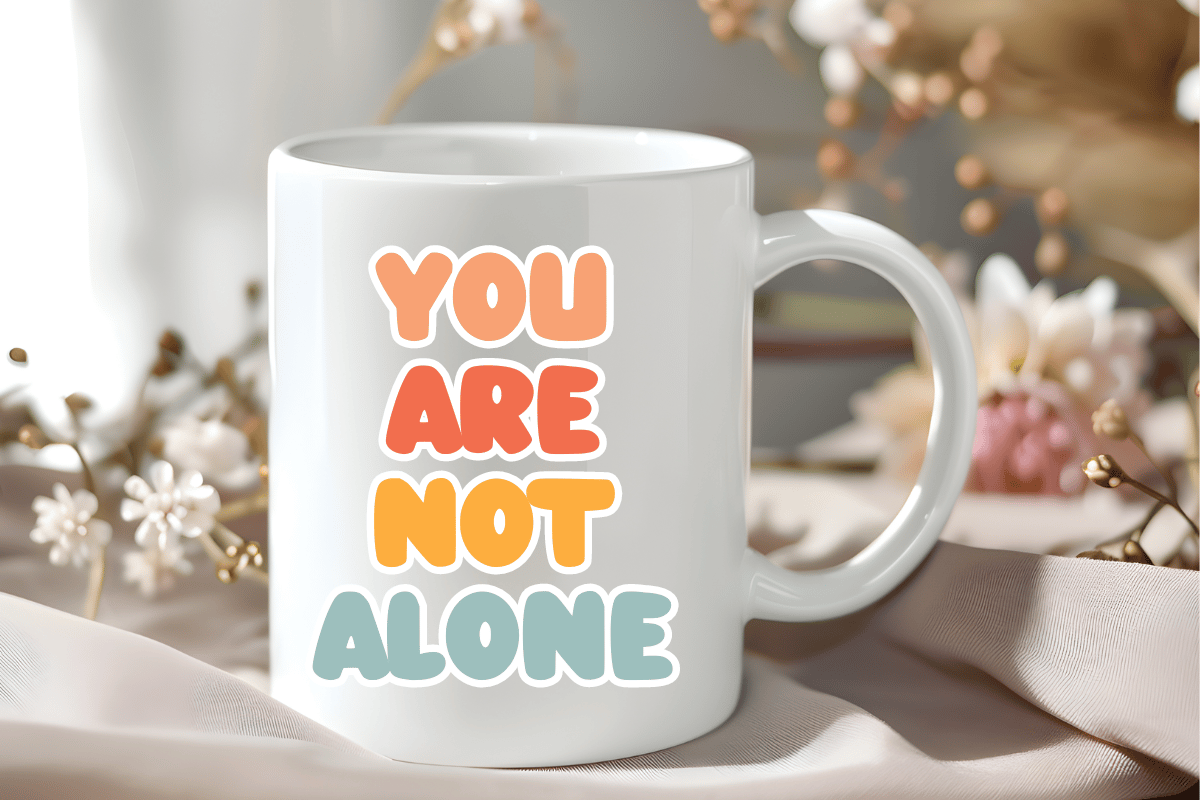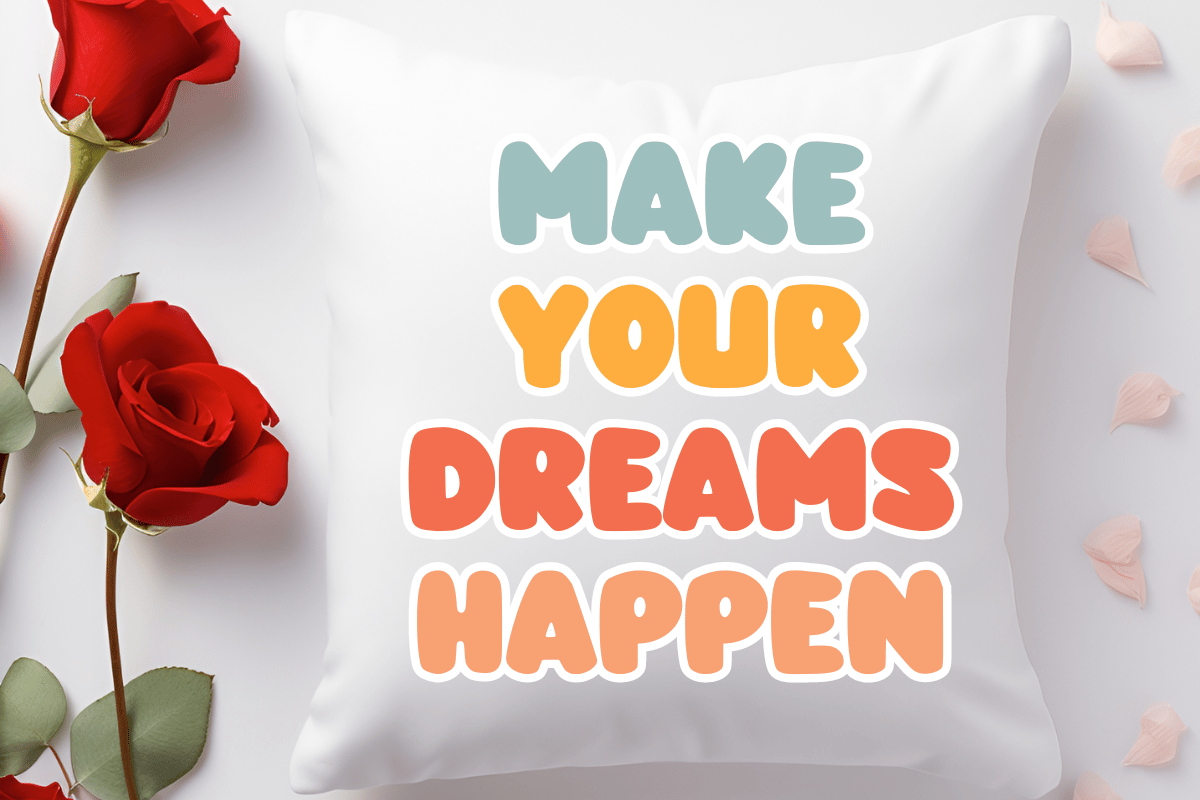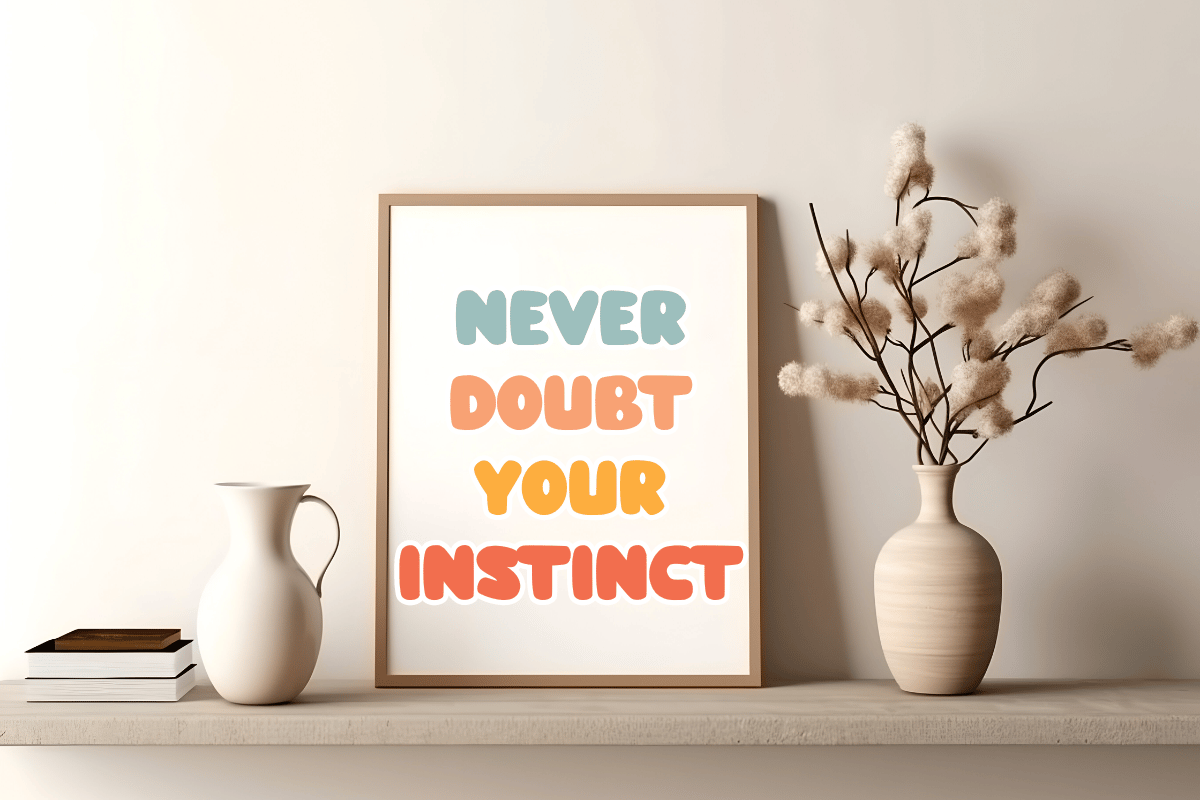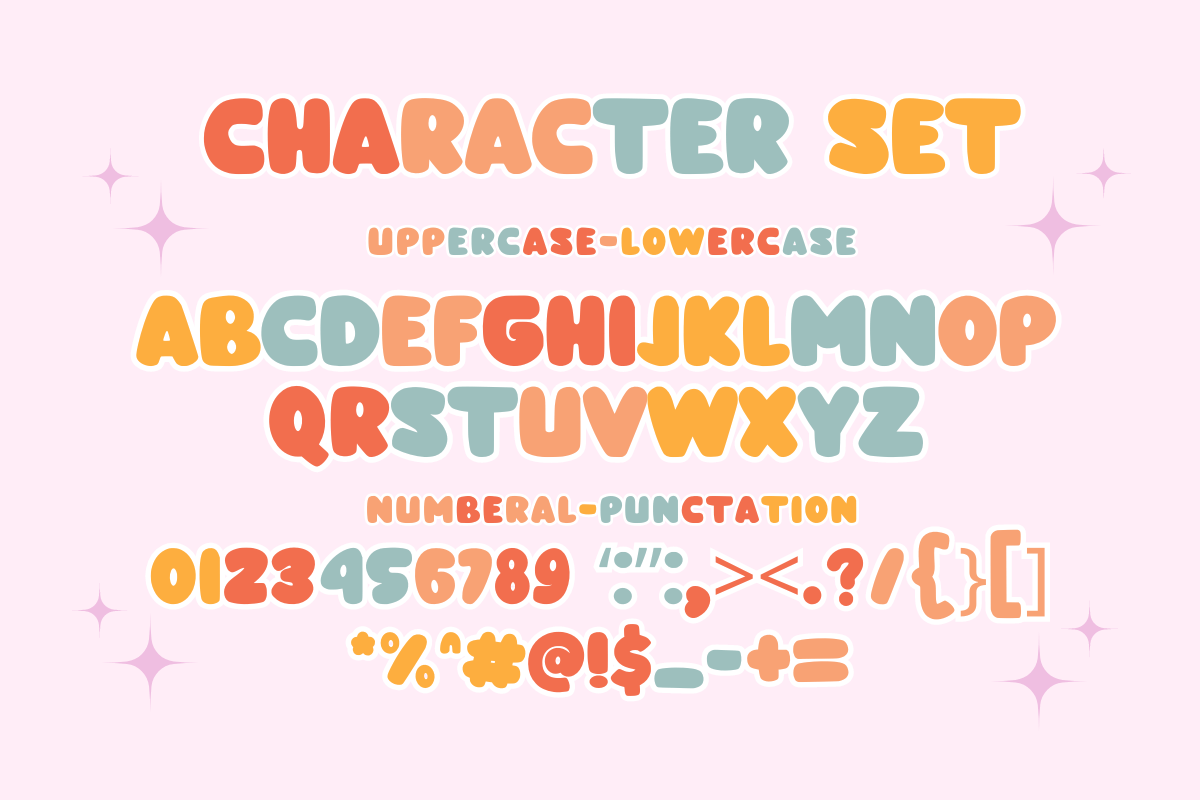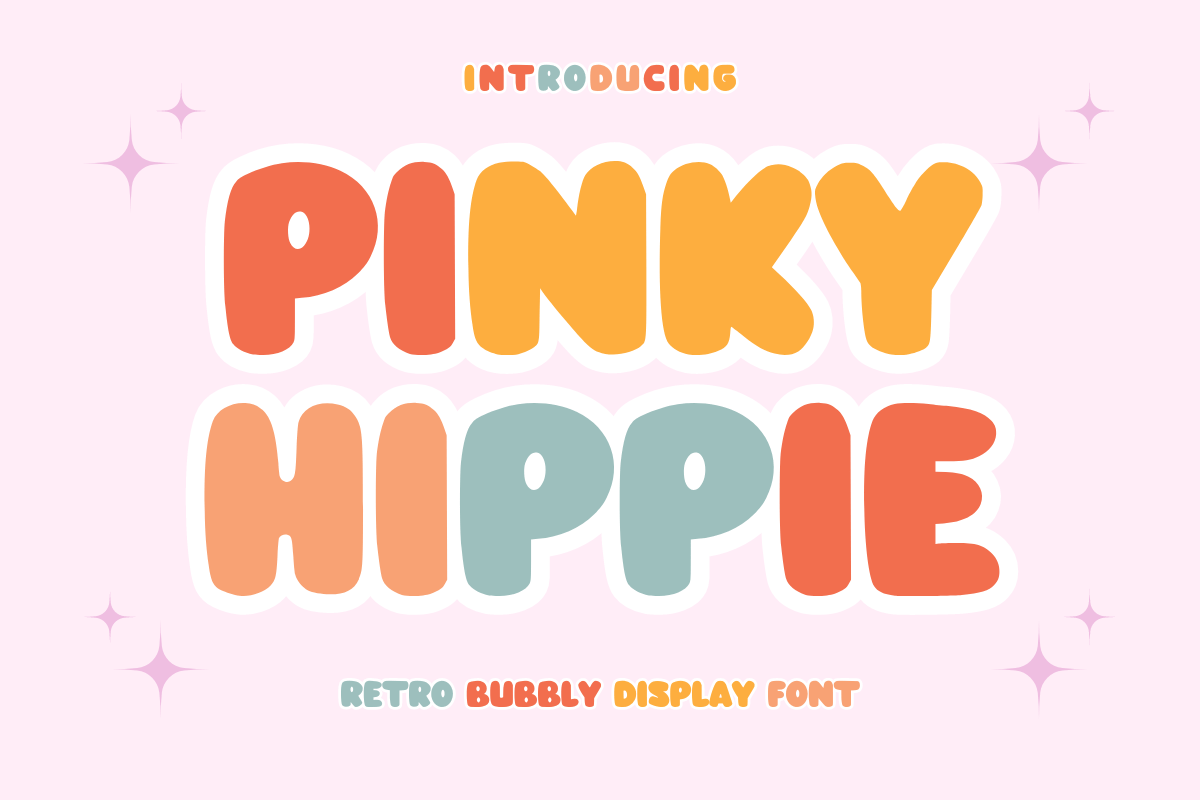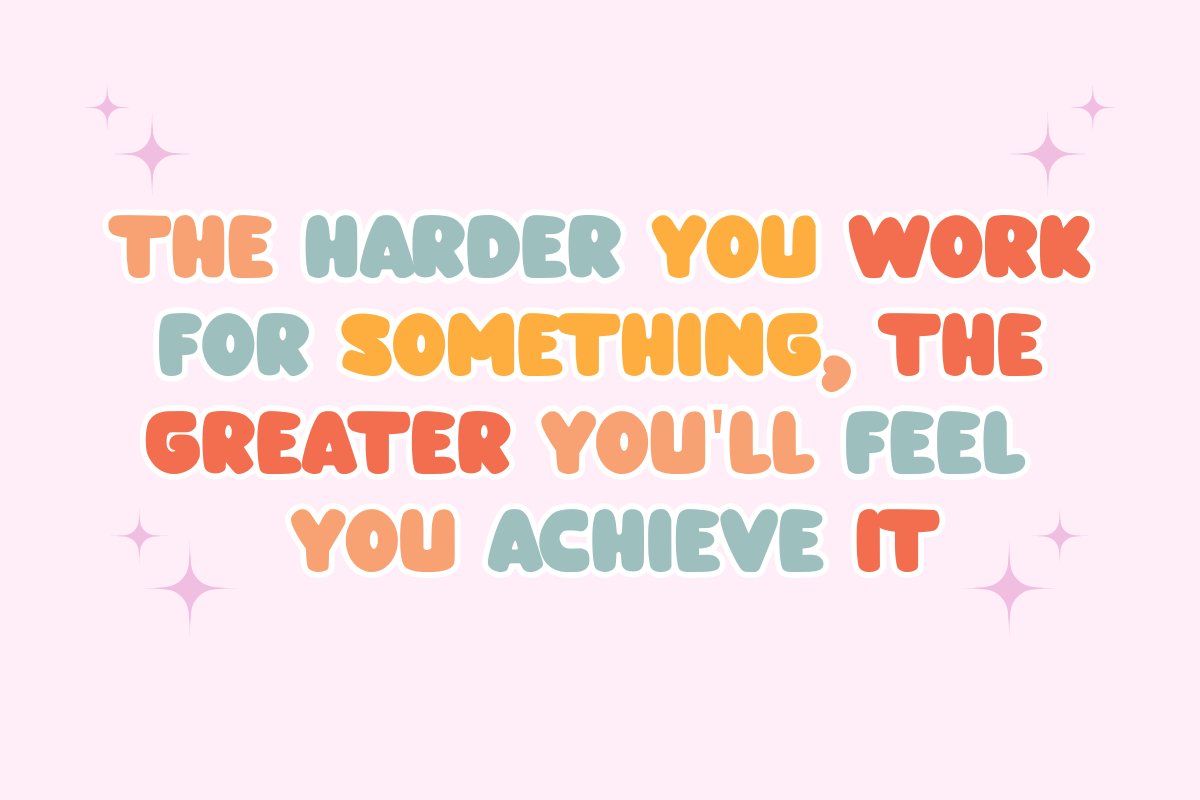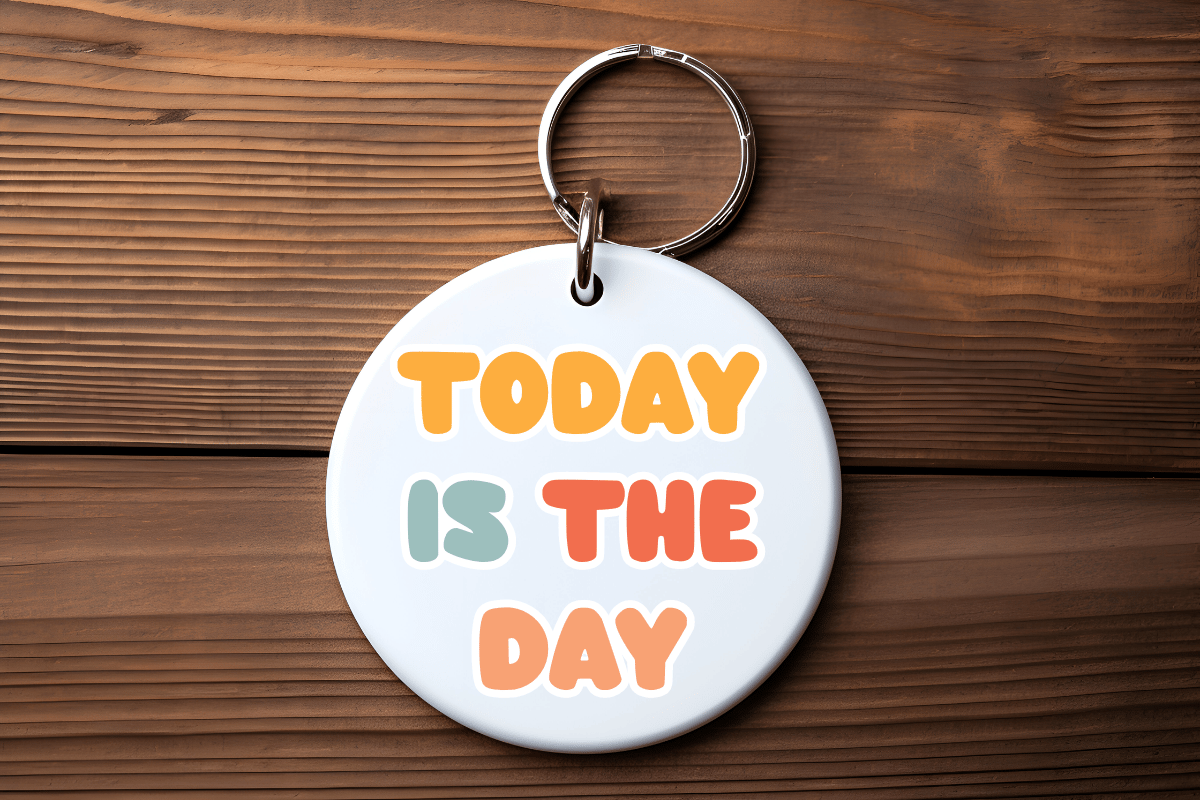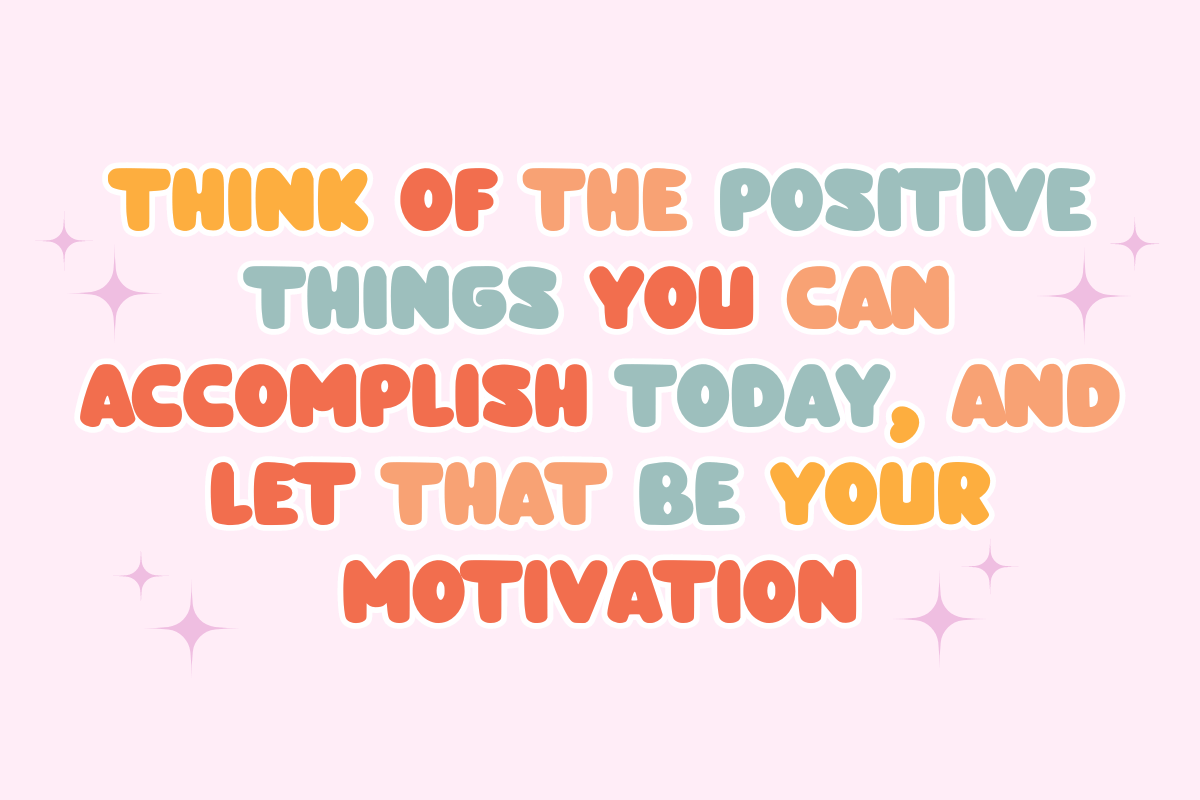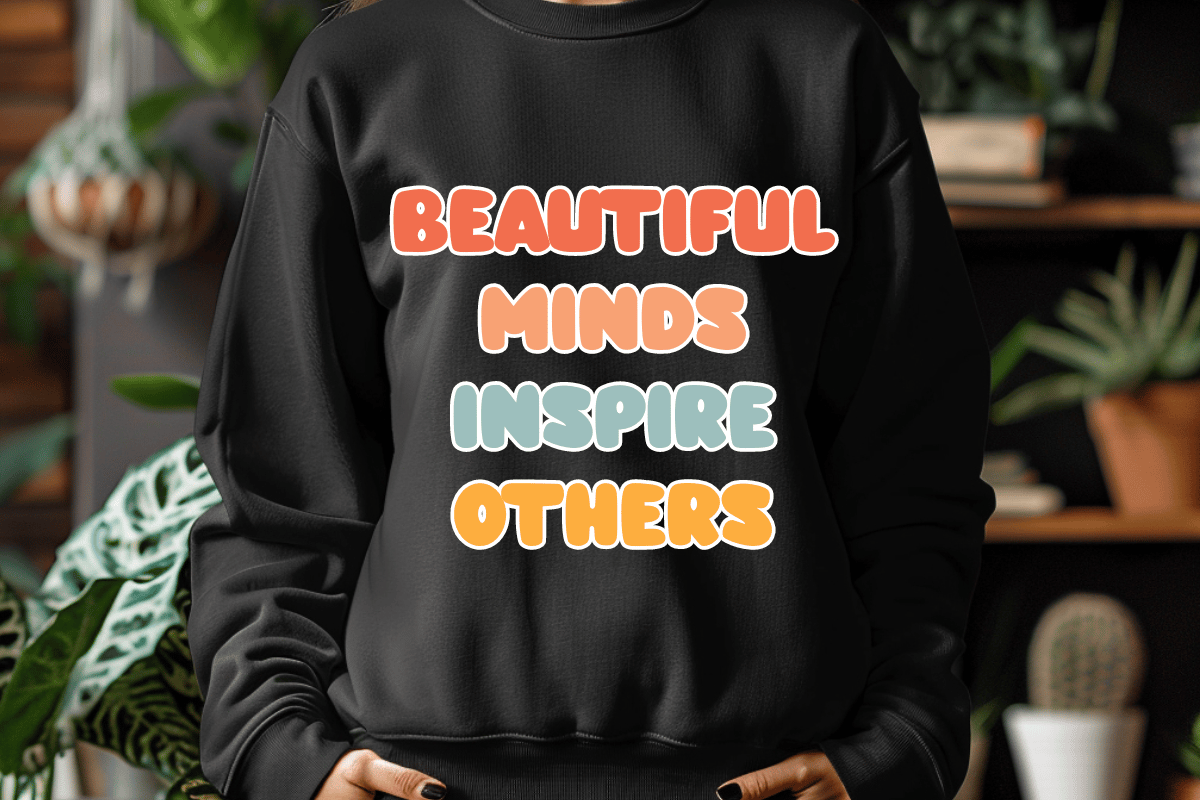
Pinky Hippie - Retro Bubble Font for Cricut and Sublimation
Retro Bubble Display Font for Cricut and Sublimation
Pinky Hippie is a retro bubbly display font inspired by the vibrant groovy aesthetics of the 1970s and the playful energy of Y2K culture. This typeface features soft, rounded curves and a bold personality designed to bring a nostalgic yet modern cheerfulness to your creative works. The thick strokes and clean outlines ensure a smooth experience for crafters, making it "Easy to Weed" and perfect for various digital cutting projects.
Perfect for creating high-quality SVG cut files, personalized t-shirts, vinyl stickers, sublimation mugs, nursery wall art, tote bags, social media quotes, and custom branding. Whether you are running a professional Print on Demand (POD) business or working on a unique DIY gift, this font provides the readability and style needed to make your products stand out.
Great for holiday themes such as Summer festivals, colorful Birthdays, Valentine’s Day, and Back to School season, adding a bright and optimistic vibe to every seasonal design!